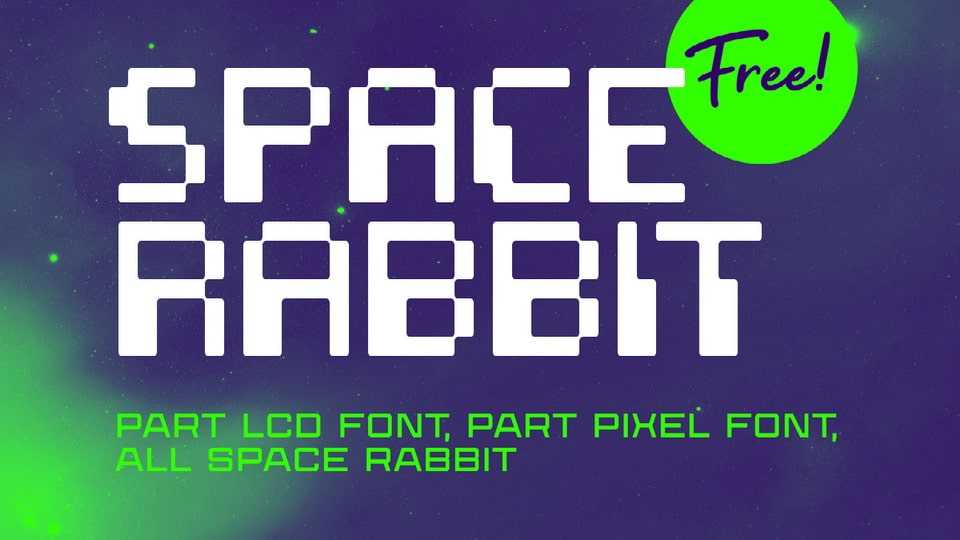
Download Space Rabbit font, a futuristic display typeface inspired by the on-screen text of the classic Bucky O’Hare NES video game.
Designer: Edward Batkins